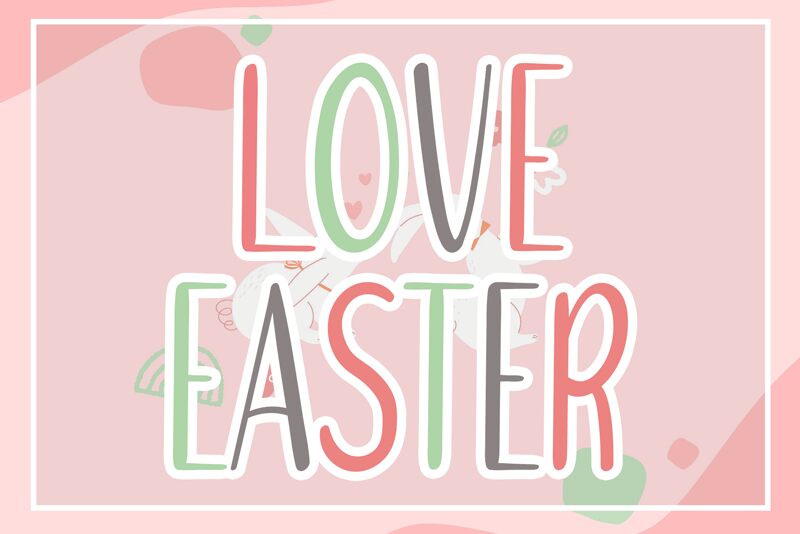
Love Easter
Love Easter font by Etik Fatimah is a free handwritten font with irregular consistency, condensed width, and informal vibe. It conveys casual elegance with a handcrafted look that draws attention to its relaxed design style and friendly nature.
Stories about important events, social media posts and covers, photography descriptions, invitations, greetings cards applications are Love Easter’s unique strengths. Use it for clothing designs such as shirt or tie prints for example; or further print materials such as magazines.